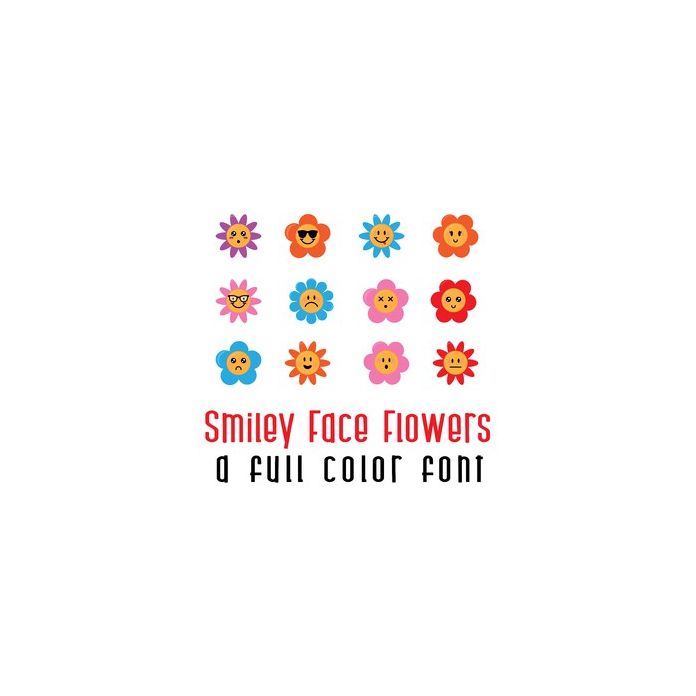
This adorable full-color doodlebat font features 26 emoji flowers. Perfect for cards, crafts, gifts, decor, scrapbook pages, planner stickers, and more!